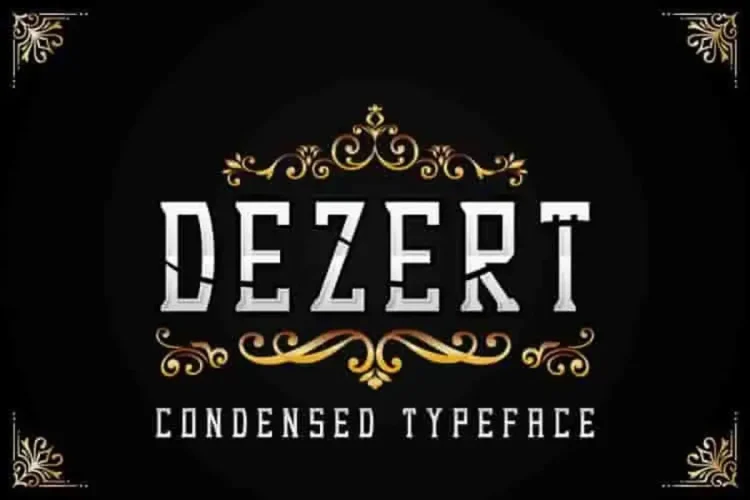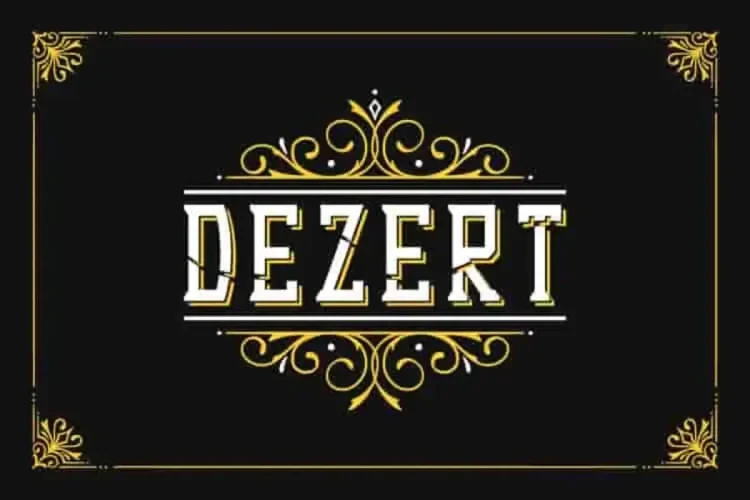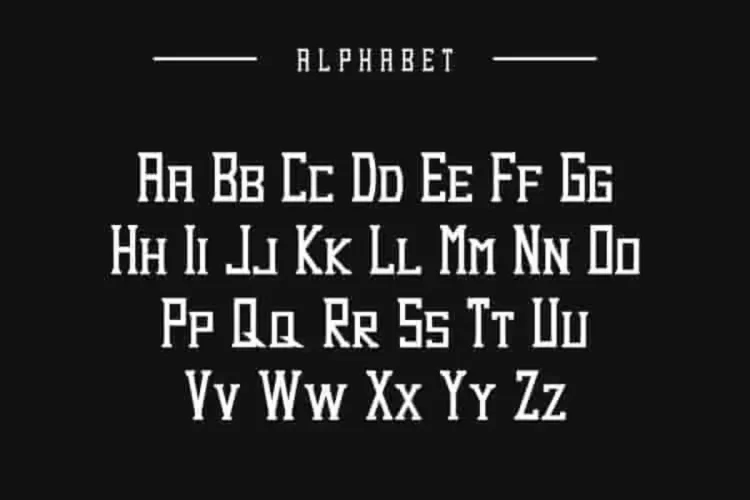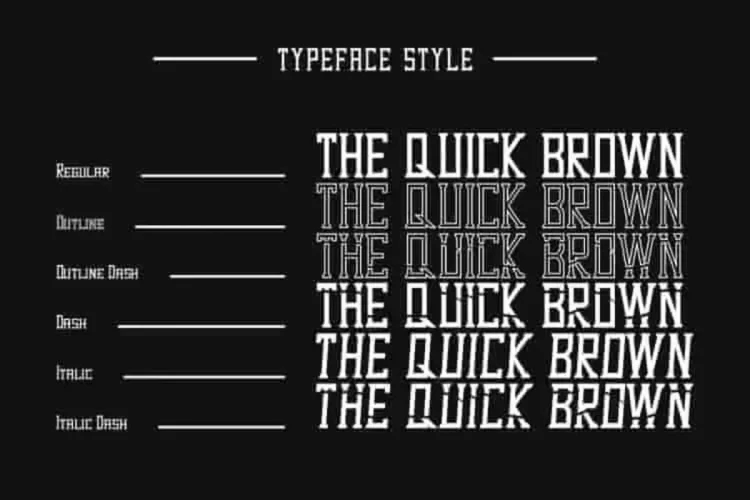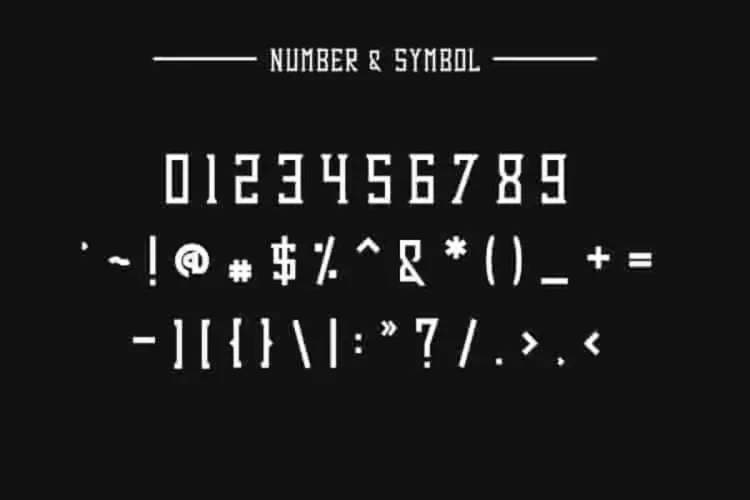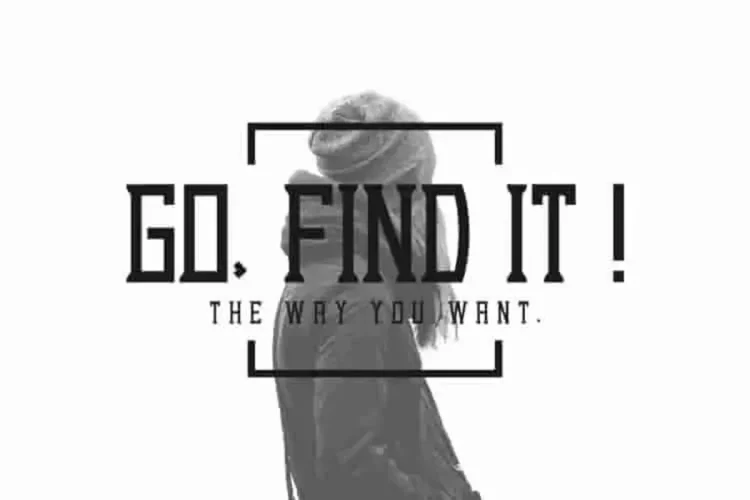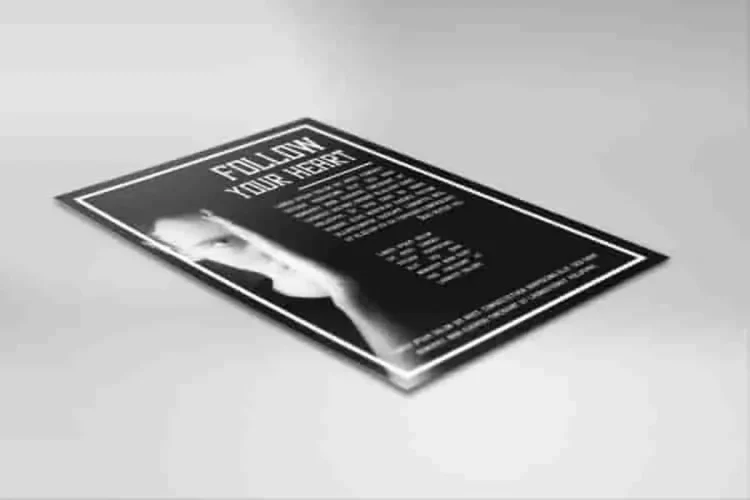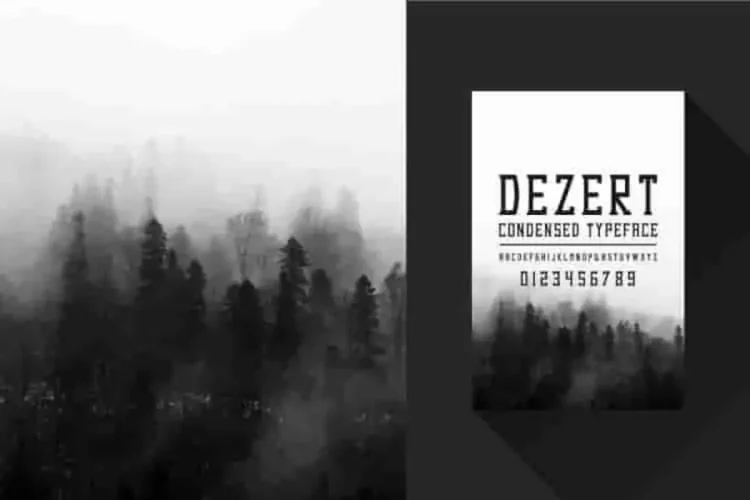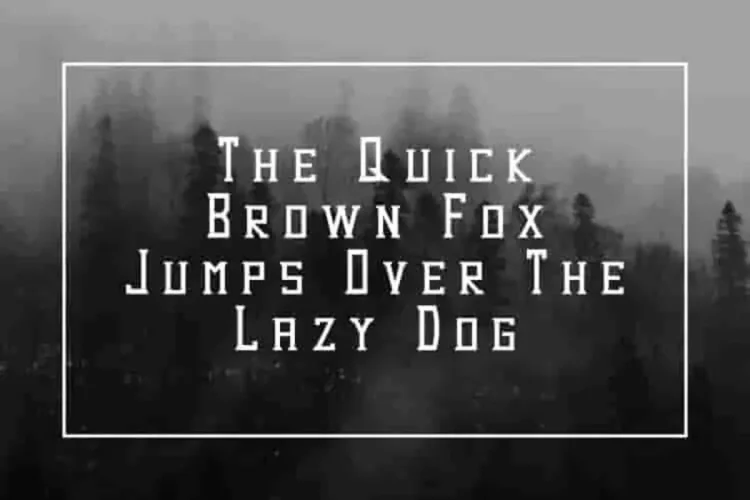
Dezert – Serif Blackletter Font
Hi Guys, Meet our new family : Dezert ! It’s a Serif  Blackletter Font, with unique glyphs. Dezert is more than a font it’s a complete typographic toolbox.
Whether you’re a designer, brand owner, or content creator, sans serif sophistication makes it an excellent choice for projects that demand attention and style.
Dezert brings a unique blend of fancy yet edgy aesthetics. Each glyph is crafted with distinctive details, giving your design a bold personality while maintaining clarity and readability. Whether you’re creating a poster, signage, flyer, vintage logo, or barbershop branding, Dezert delivers that bold, old-school vibe with a modern twist.
🖋 Dezert comes with SIX bold styles: Regular, Italic, Outline, Dash, Outline Dash, and Italic Dash.
• Regular: Strong and solid perfect for headlines, posters, and vintage branding.
• Italic: Adds movement and flair while keeping the bold look.
• Outline: Sleek and hollow great for stylish, layered typography or neon-style designs.
• Dash: Features a striking inner-line effect, giving a raw, edgy feel.
• Outline Dash: A creative twist with broken outlines ideal for standout retro visuals.
• Italic Dash: Dynamic and unconventional perfect for bold, artistic layouts.
Perfect for both print and digital, this font adds a dramatic and memorable look to Instagram quotes, social media branding, YouTube thumbnails, merchandise, labels, and beyond. The six versatile styles let you experiment with tone from classic to contemporary, bold to minimal.